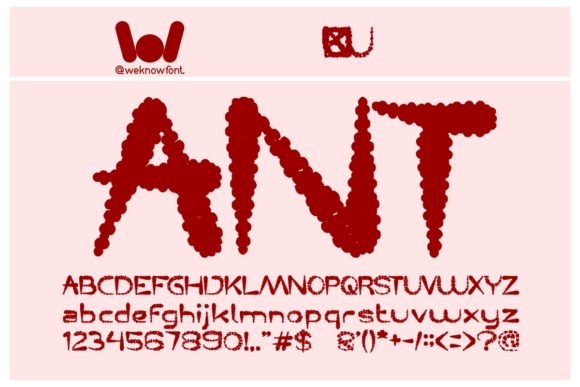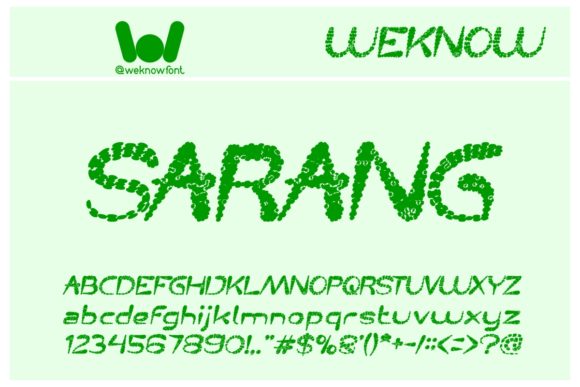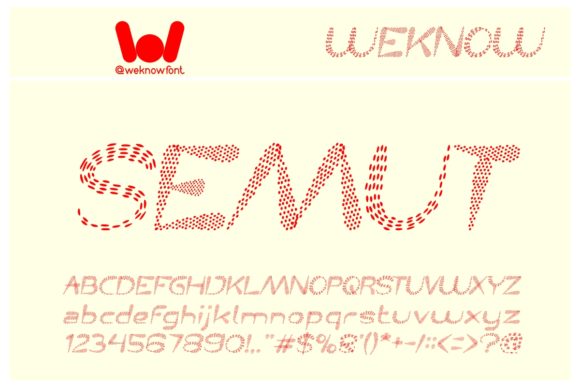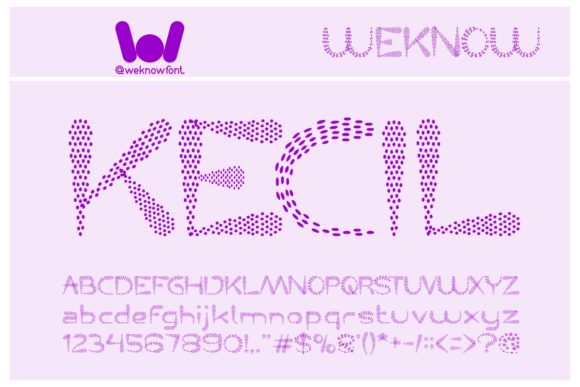
Introduction to Little Ant Font
Little Ant is an incredibly cute and interesting looking display font.
This original look will appeal to a wide range of crafty ideas, from letterheads and titles, to stationery .
Little Ant Font offers exceptional quality and versatility, making it a valuable addition to your design toolkit. Whether you’re creating for personal projects or commercial use, Little Ant Font delivers professional results.